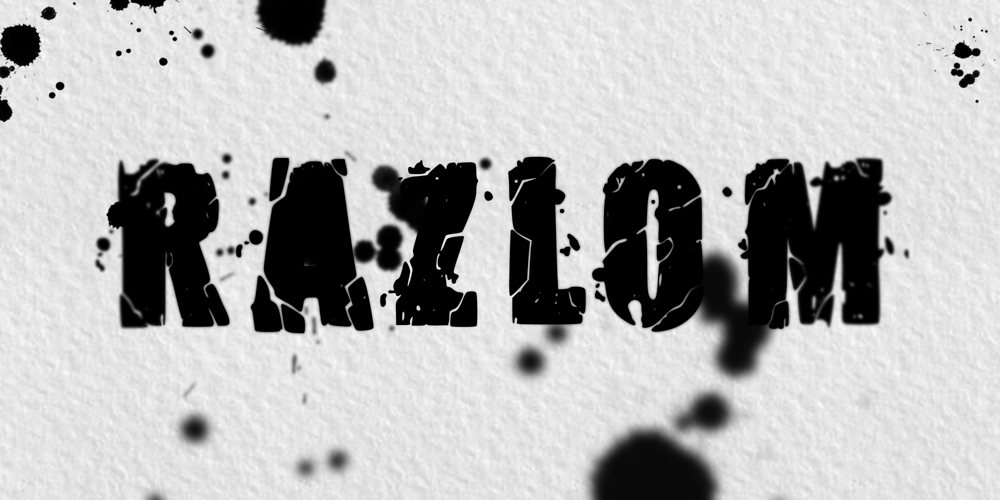
Razlom Font Family was designed by Pavel Liapiokhin and published by Pavel Boog. Razlom contains 1 styles and family package options. ?Razlom is a spectacular, brutal and at the same time intriguing font. Tej wide letters are filled with small cracks resembling faults. They crack, but they don’t break. The font will convey confidence and strength to each project and highlight it from all